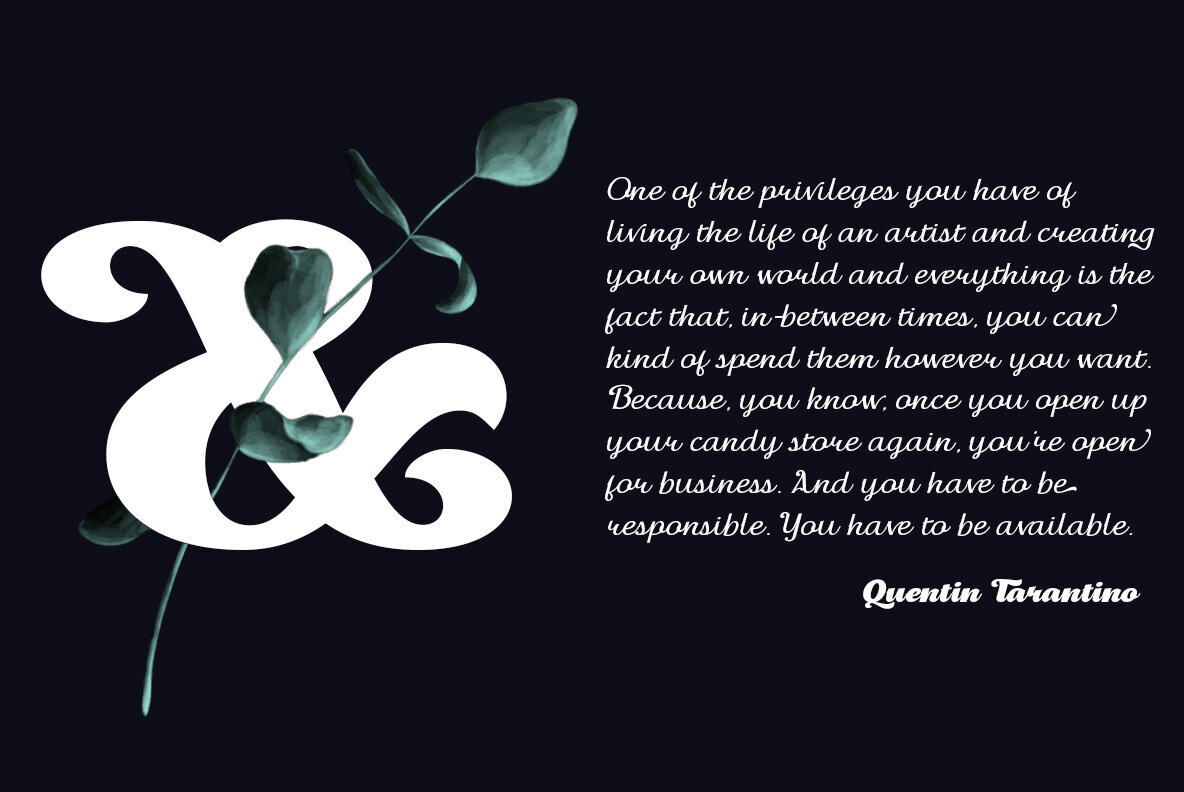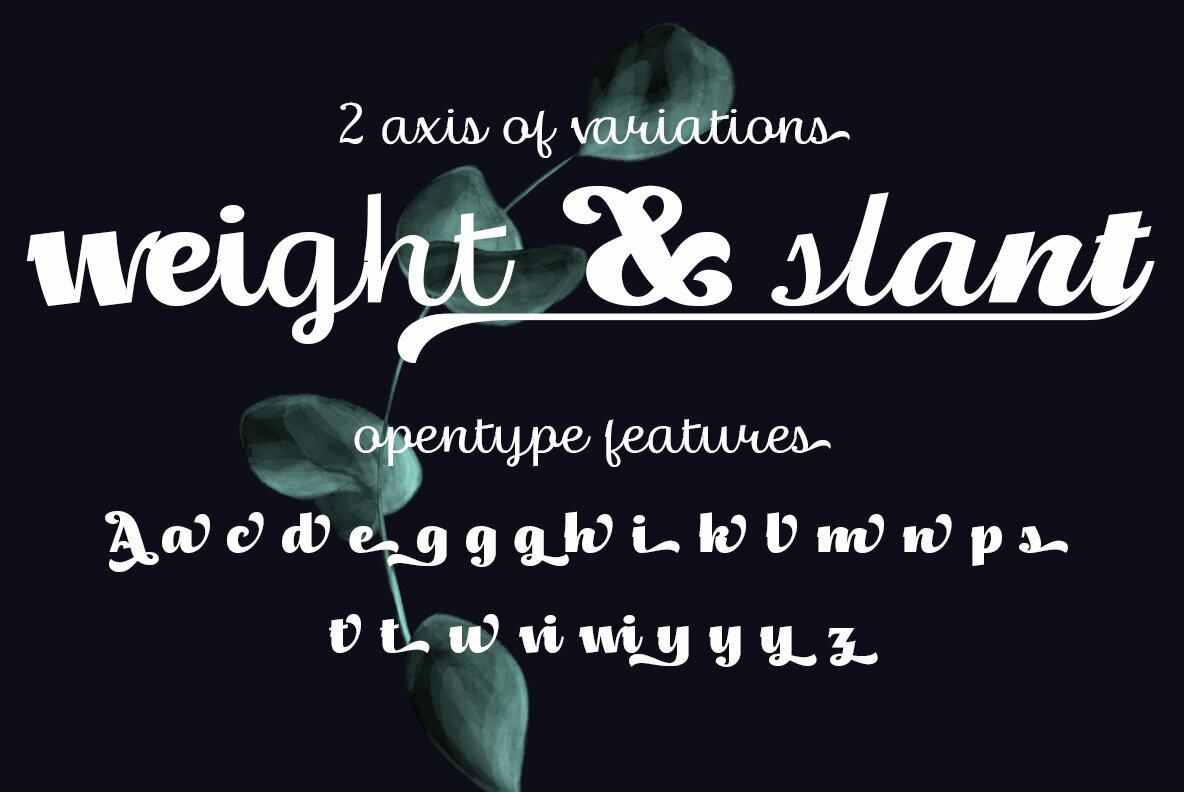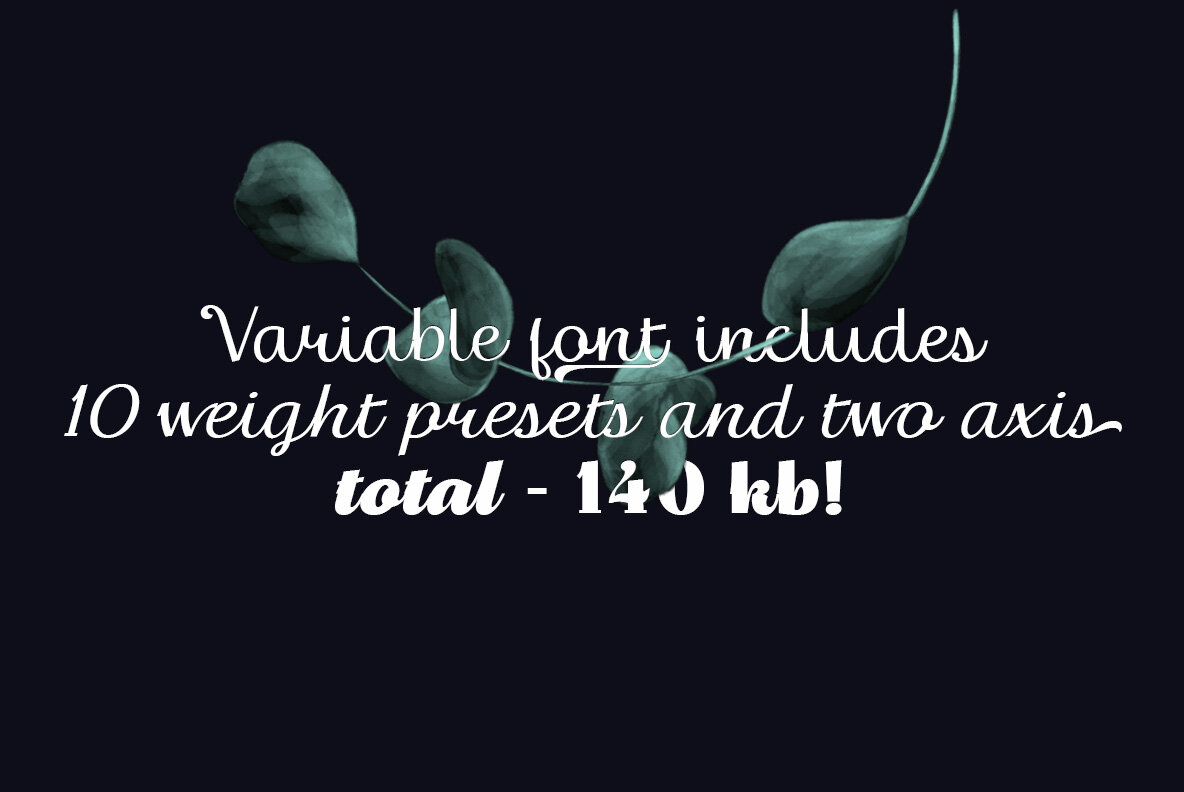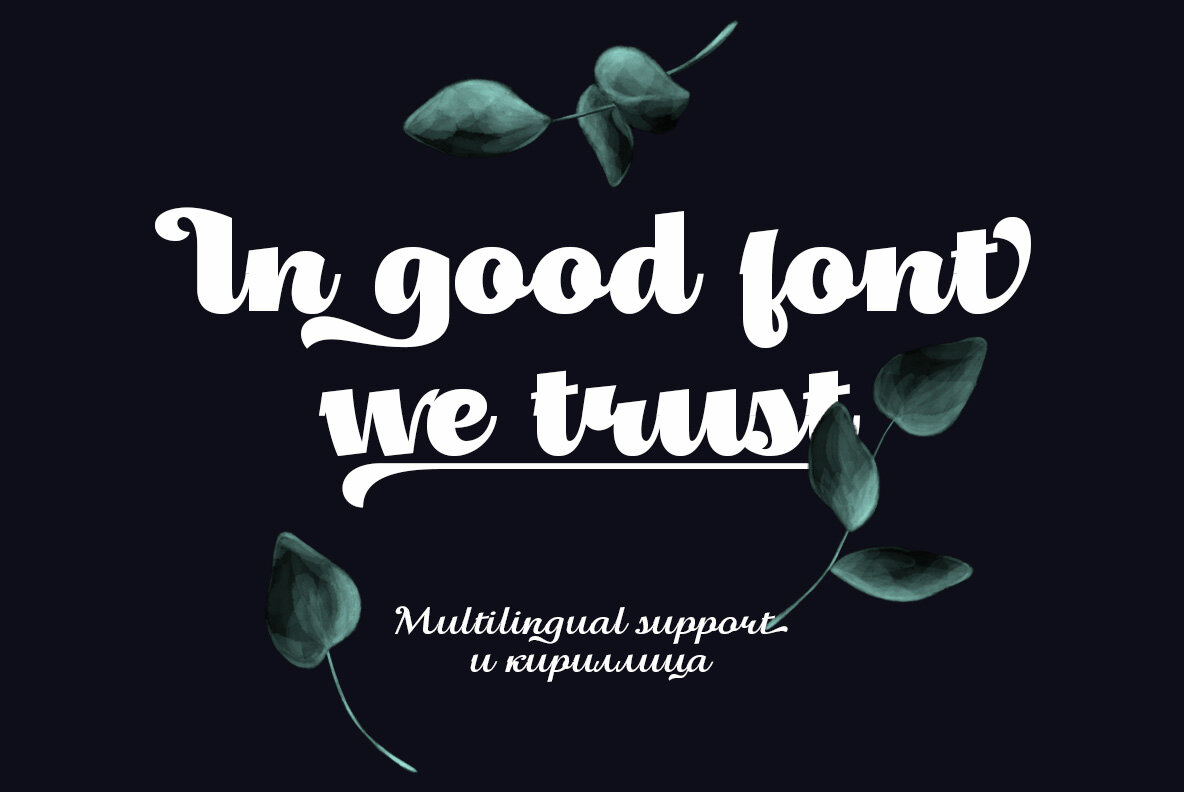
Thephir Font
Thephir by Andriy Dykun is a versatile script family featuring a rich assortment of 10 styles and a variable font with two axes. Ideal for diverse applications such as logos, badges, insignias, packaging, headlines, posters, apparel, greeting cards, and wedding invitations, Thephir ensures your design stands out. It boasts extensive support for many European languages and impeccable Cyrillic characters.Thephir: A Dynamic Script Font Family